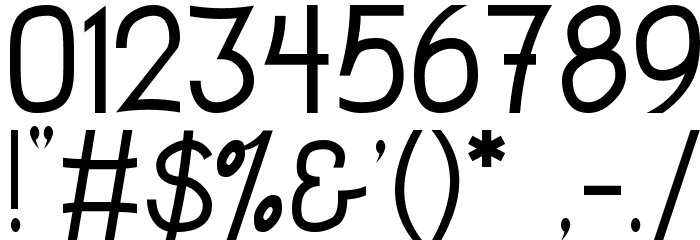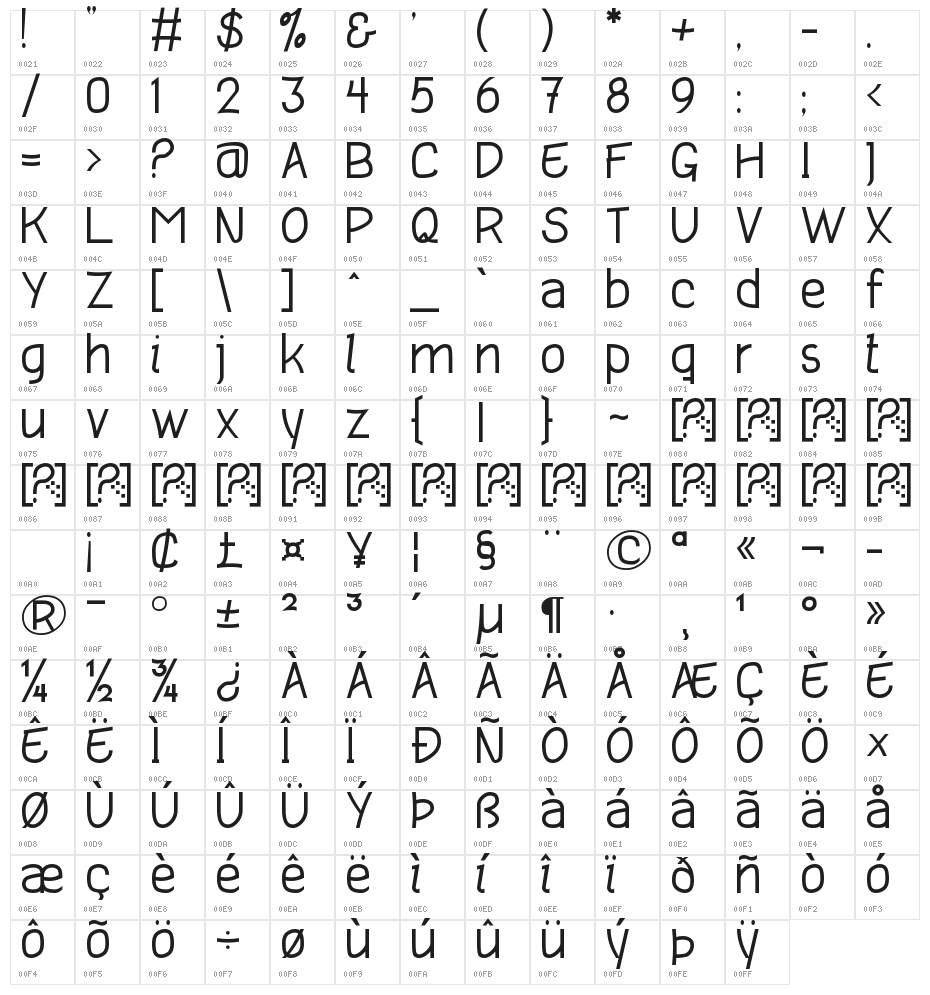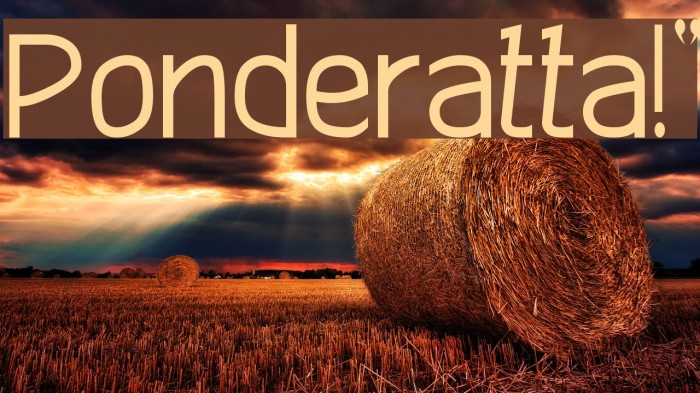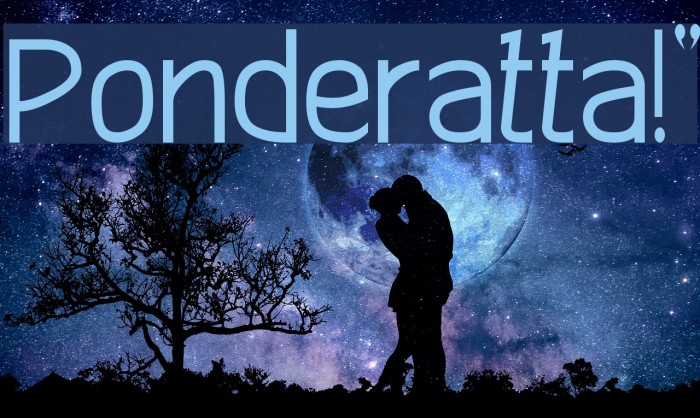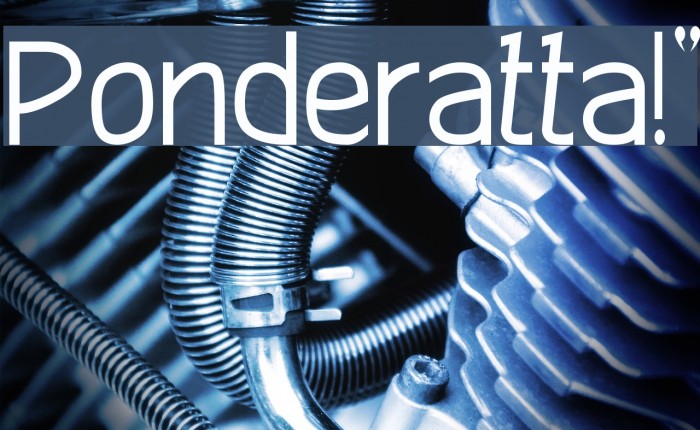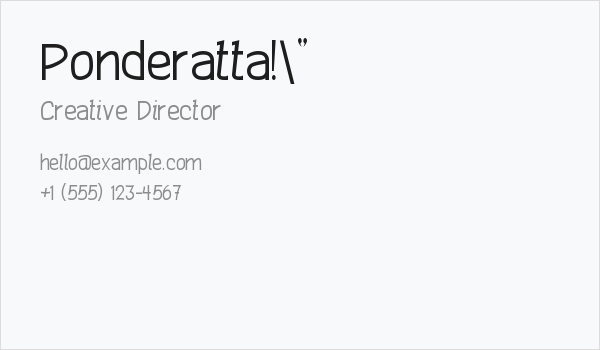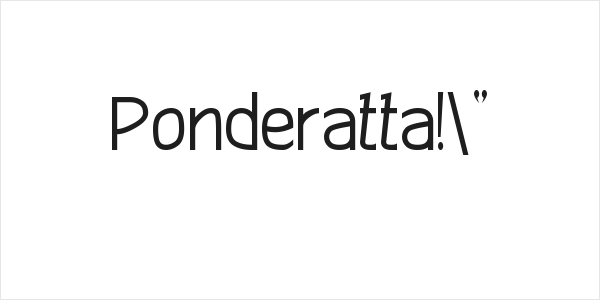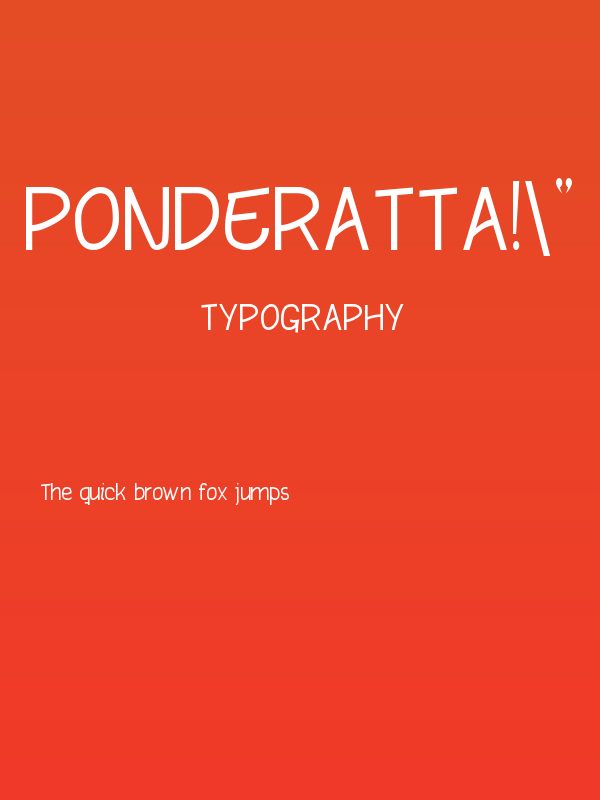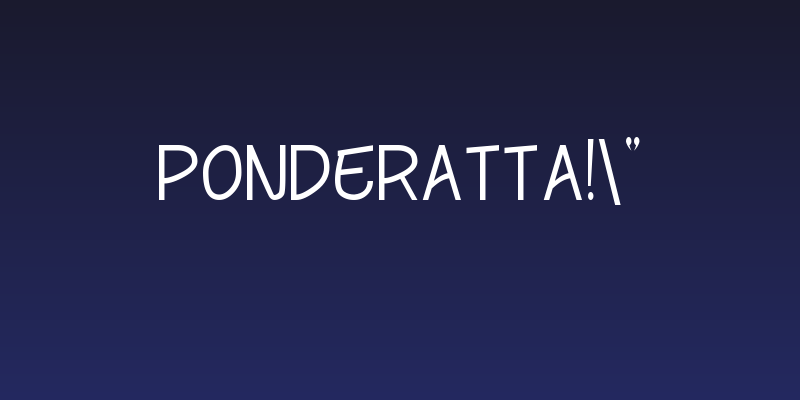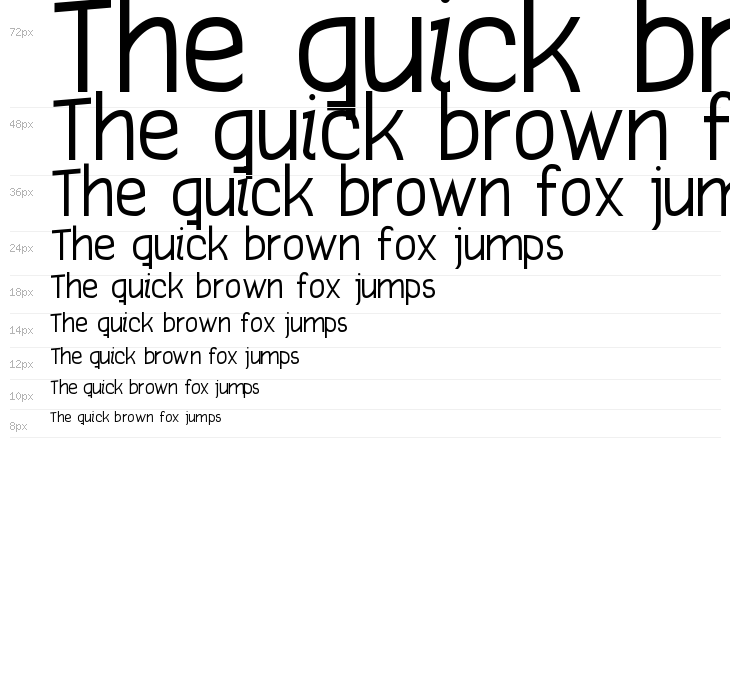
Ponderatta!" Font
Ponderatta!" Description
This font features a playful and modern design with a slightly whimsical touch. The characters are crafted with a smooth, flowing style that combines both rounded and angular elements, giving it a unique and approachable appearance. The uppercase letters are tall and slightly narrow, while the lowercase letters maintain a consistent height, creating a harmonious balance. The numerals are bold and clear, ensuring readability. Special characters are designed with the same playful aesthetic, making them stand out while remaining cohesive with the overall font style.
| Proposed Projects | Ideal for children's books, playful branding, creative posters, and modern web design. |